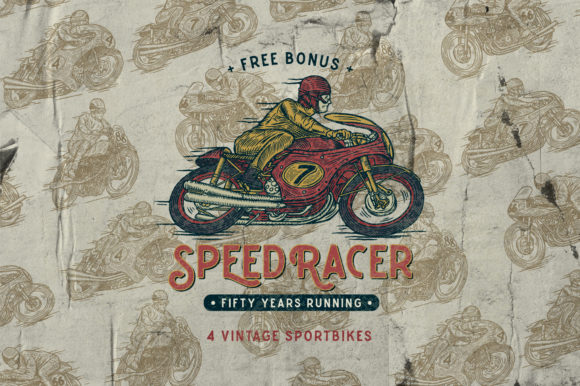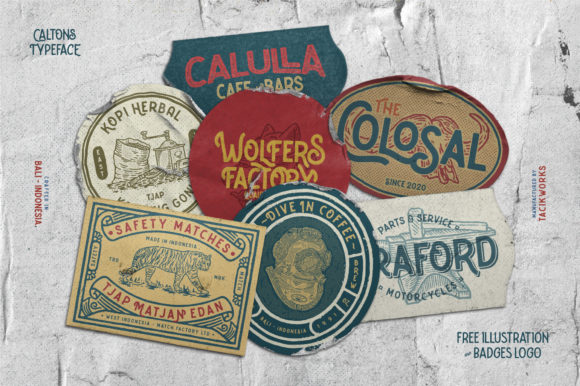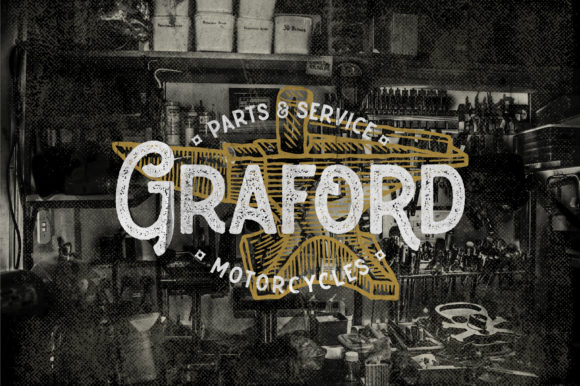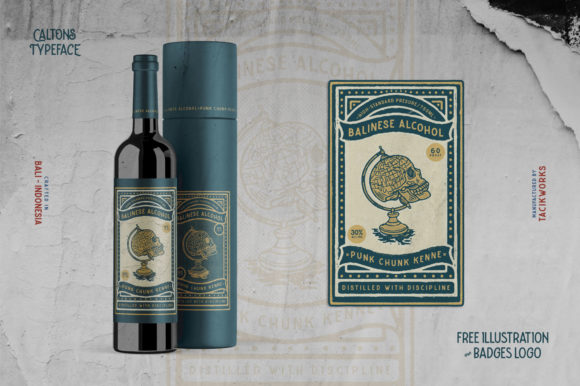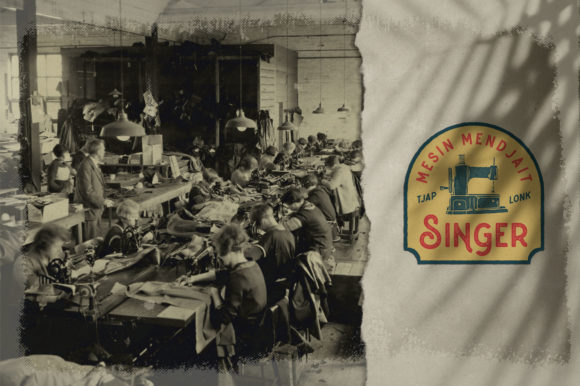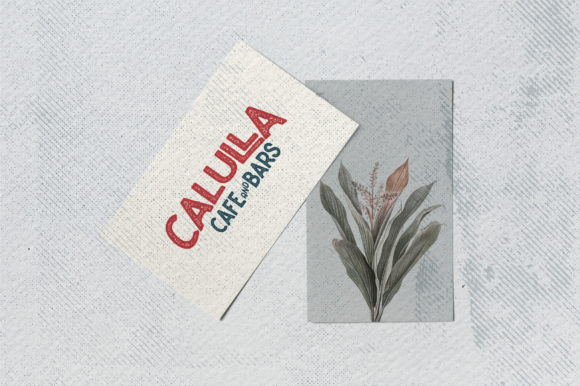
Introduction to Caltons Font
Caltons feels playfully nostalgic and delivers an incredible vintage aesthetic.
Use this display font to add that special retro touch to any design idea you can think of .